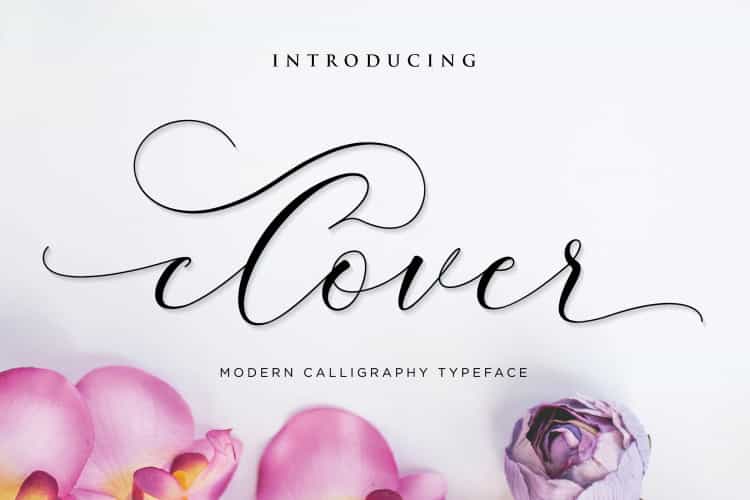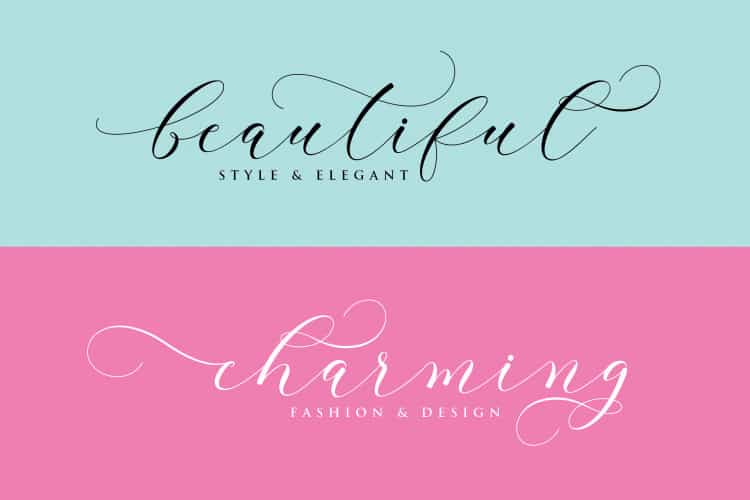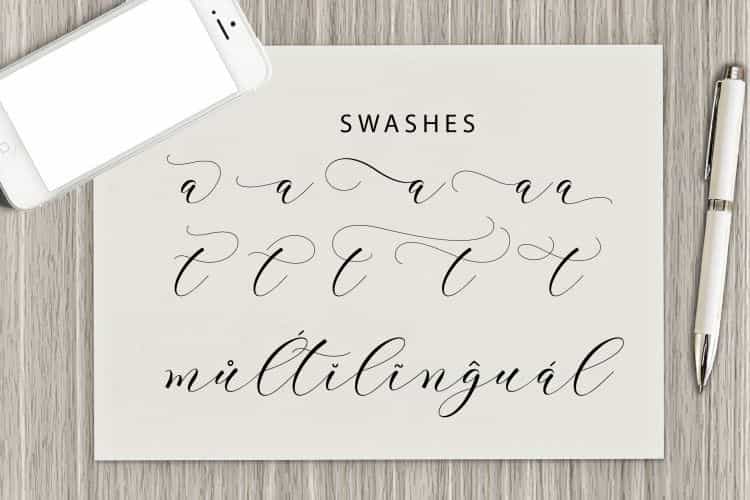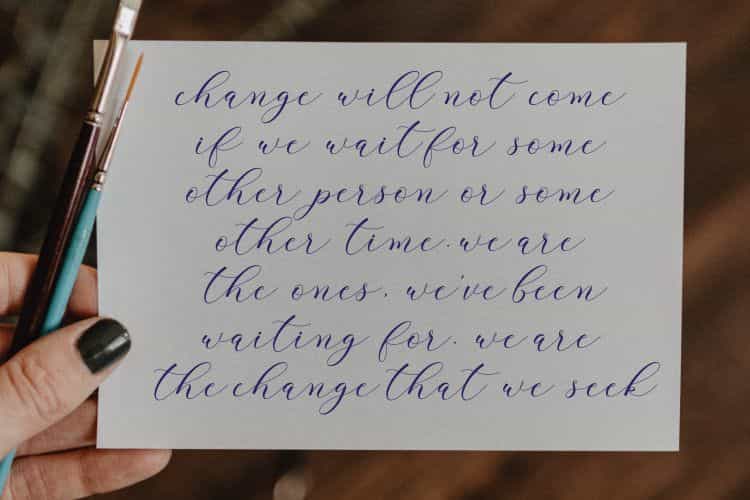
Clover Font – It is a calligraphy script font that has gorgeous alternative characters. a combination of copper calligraphy with a handleting style. Crafted to provide a touch of class. Clover has been designed and shared by fanastudio. The “clover” is a fashionable font that is associated with femininity.